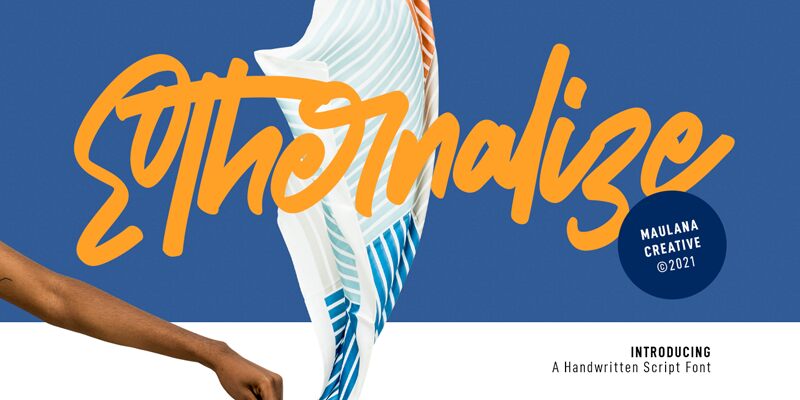
Ethernalize Free Regular
Ethernalize is the perfect semi-light handwritten font for all your creative projects. Designed by the talented Maulana Creative, this semi-condensed typeface adds a unique touch to any design. Whether you're creating wedding invitations, social media graphics, or branding materials, Ethernalize brings a touch of elegance and sophistication to your work. Its soft lines and curves give it a natural feel that's both approachable and professional. Use it to add personality and warmth to your designs while maintaining readability at smaller sizes. With Ethernalize, you'll create stunning visuals that stand out from the crowd.